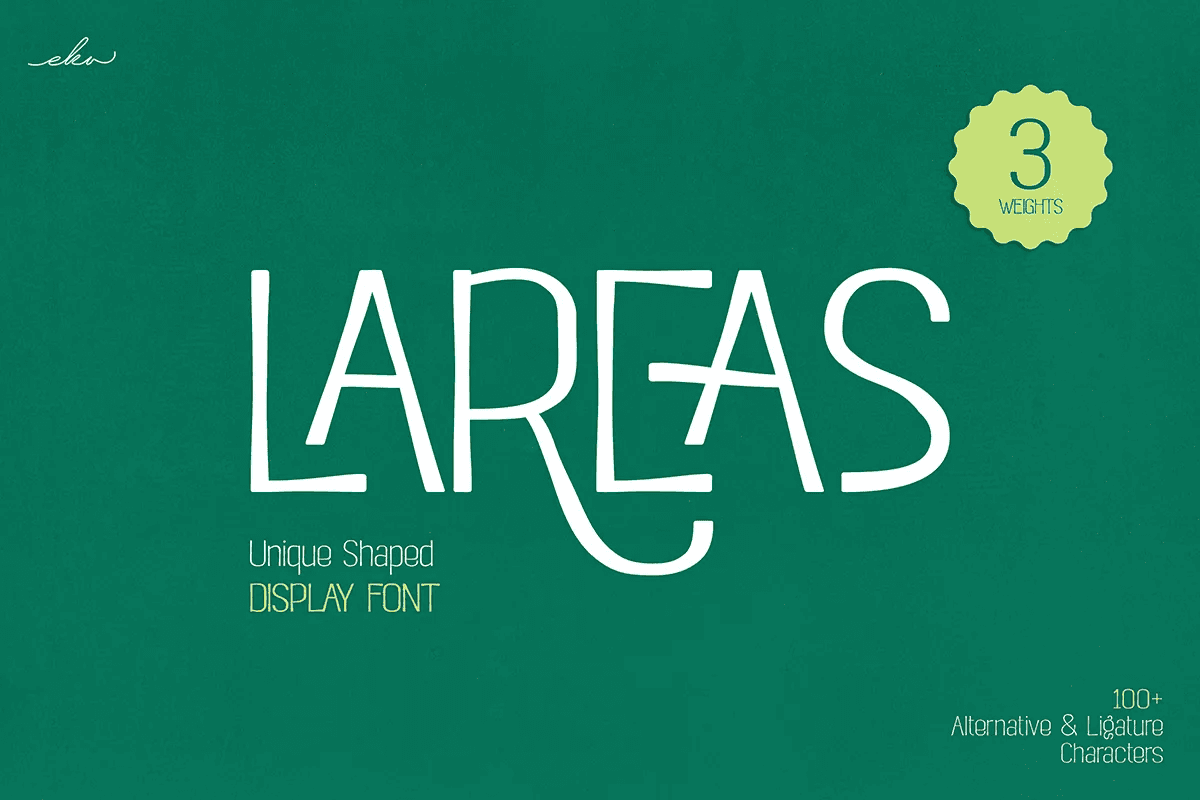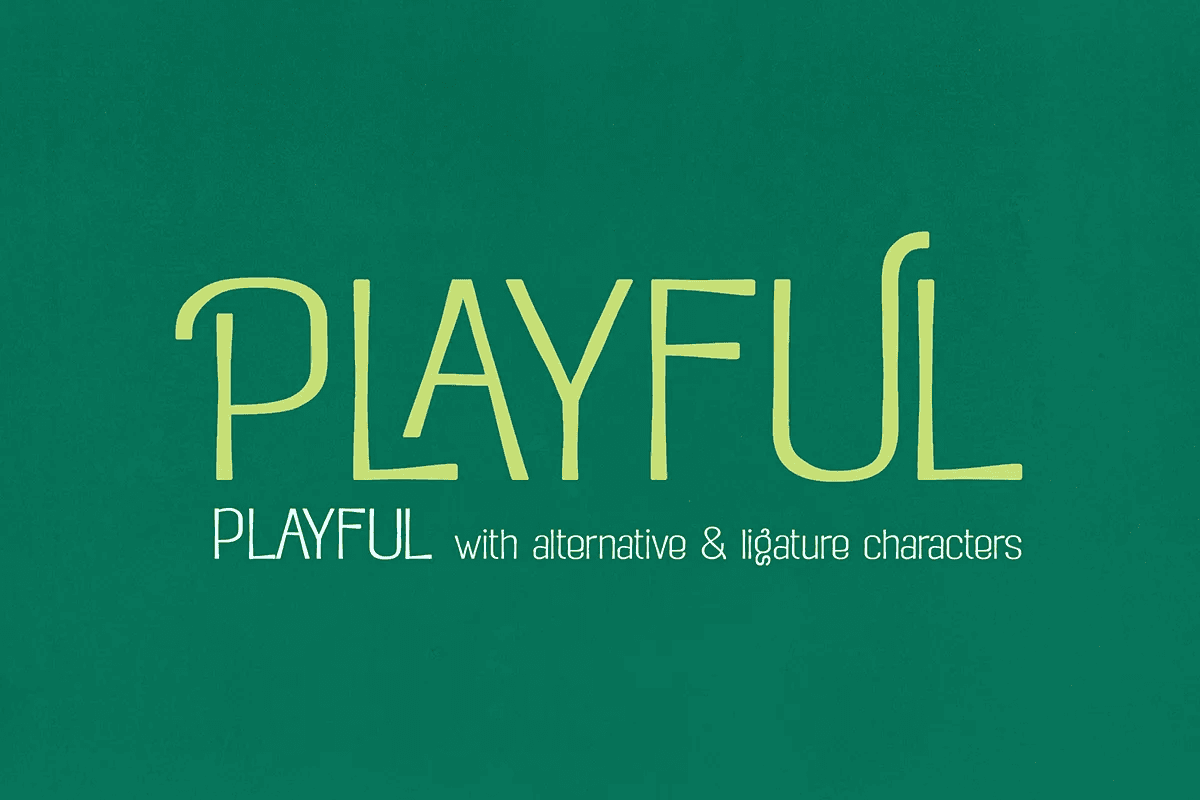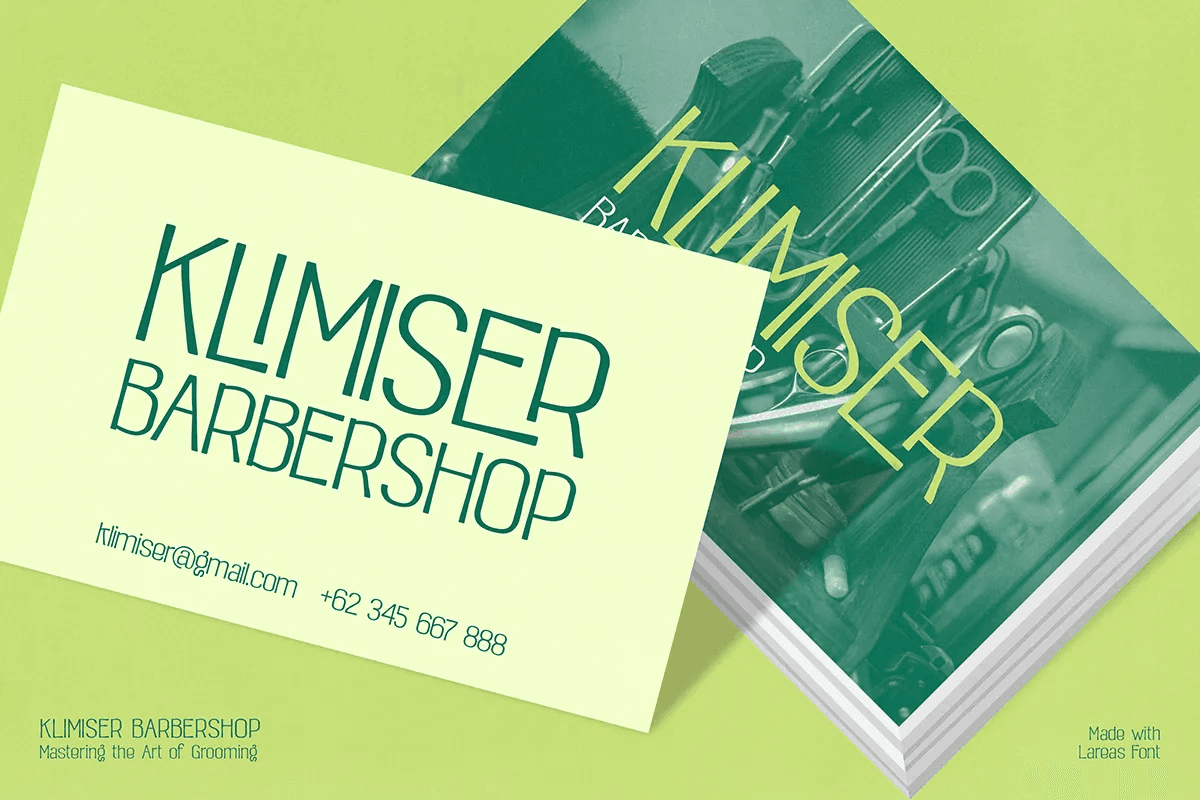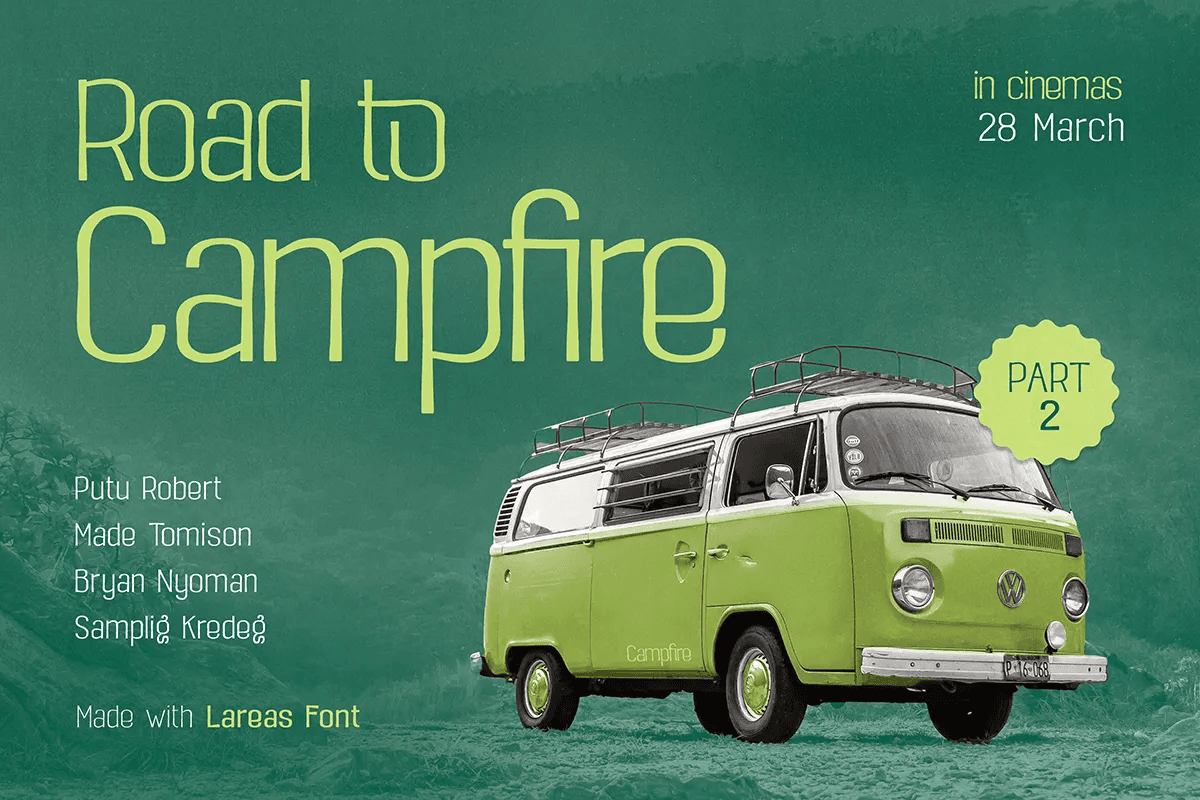
Unleash Your Creativity with Lareas – Display Font! It is a bold, unique font you’ve been searching for! Lareas is not just another font—it’s a statement. Designed with striking, winding lines that break away from the ordinary, it delivers a fresh, dynamic energy to your designs. Its uniquely curved and irregular shapes make it the perfect choice for projects that need to stand out and leave a lasting impression. Whether you’re creating logos, posters, branding, or any other creative project. This font adds a distinctive, playful touch that grabs attention. With three versatile weights Regular, SemiBold and Bold, Lareas offers the flexibility you need for any design, from subtle accents to bold, eye-catching headlines.